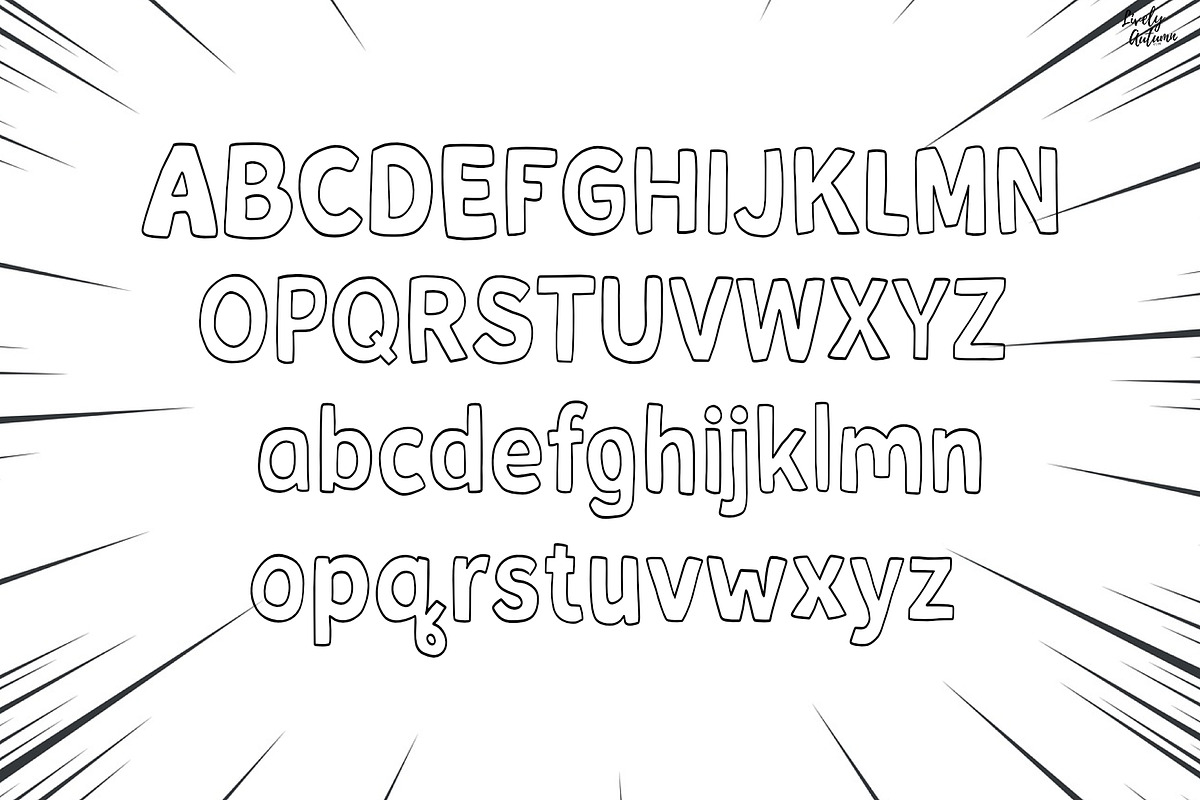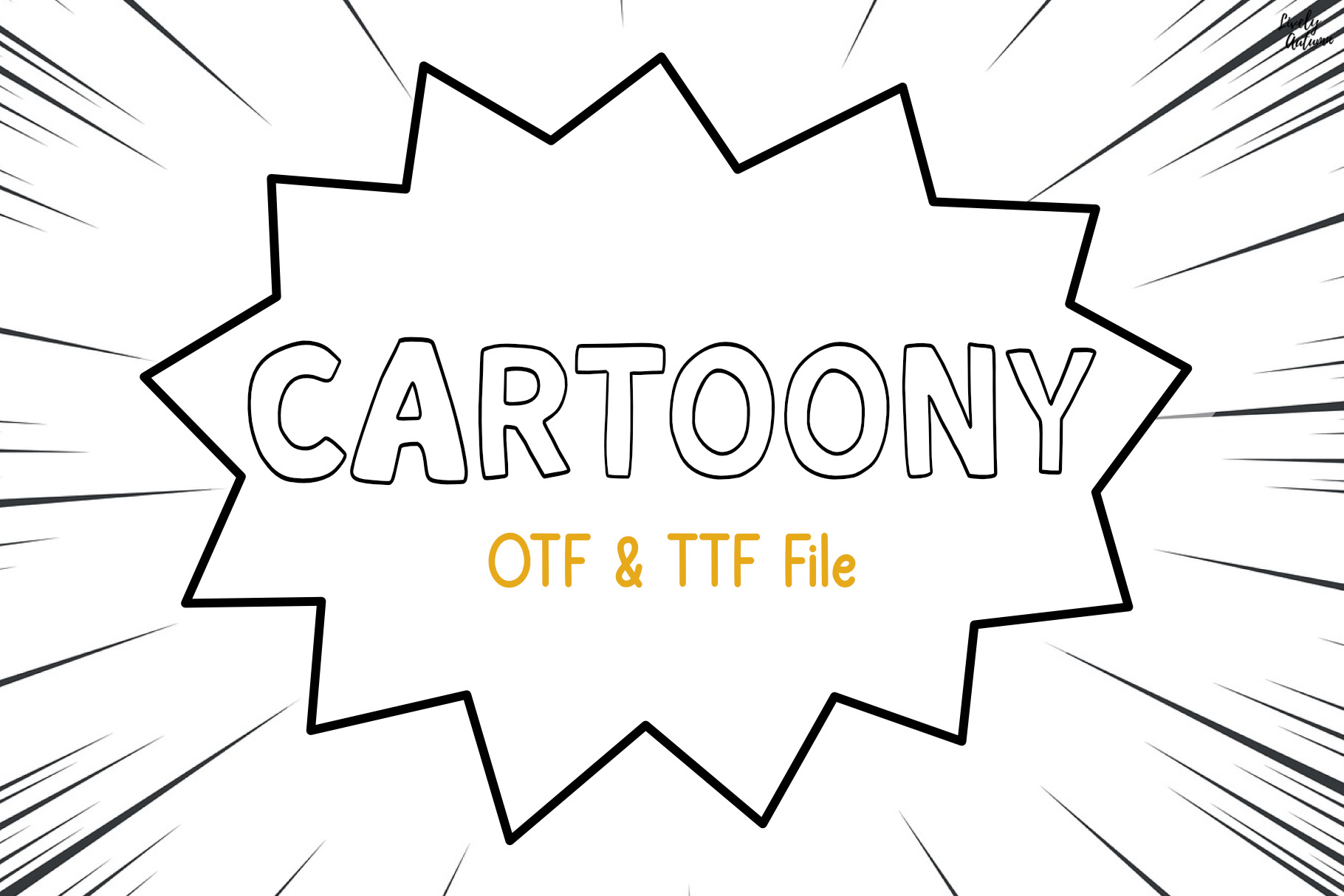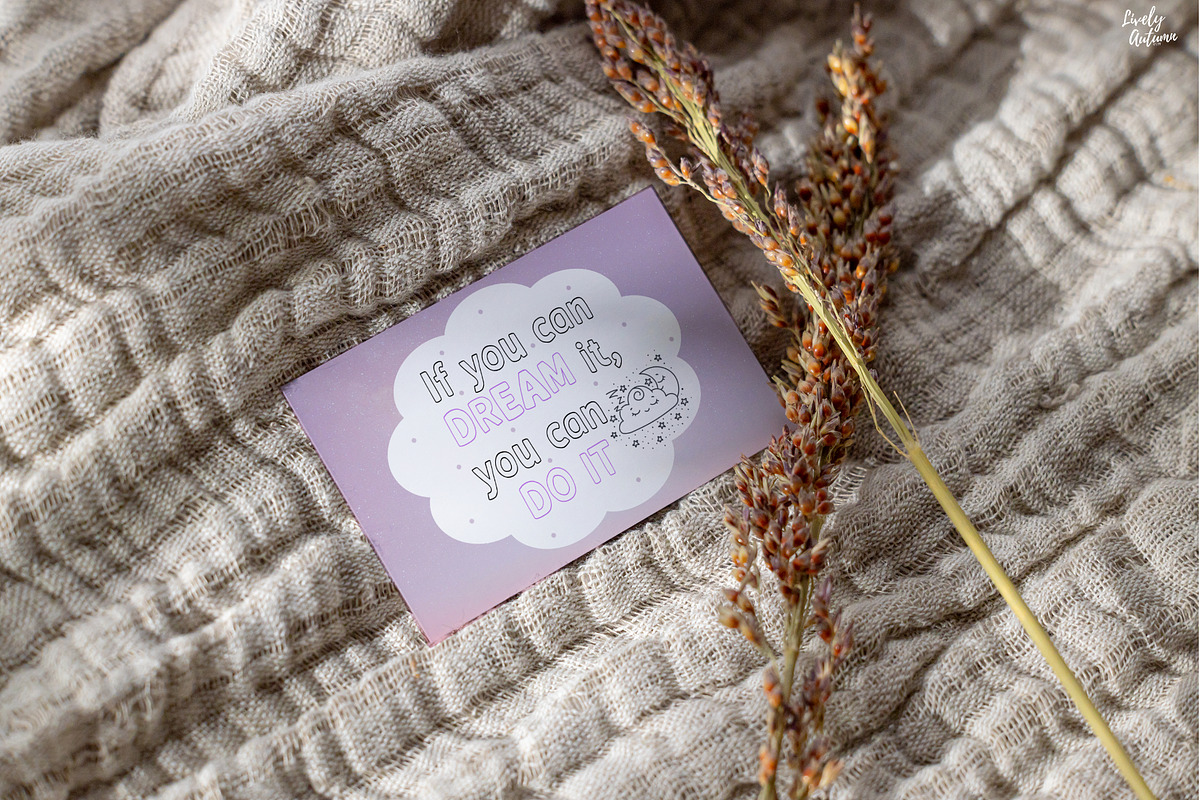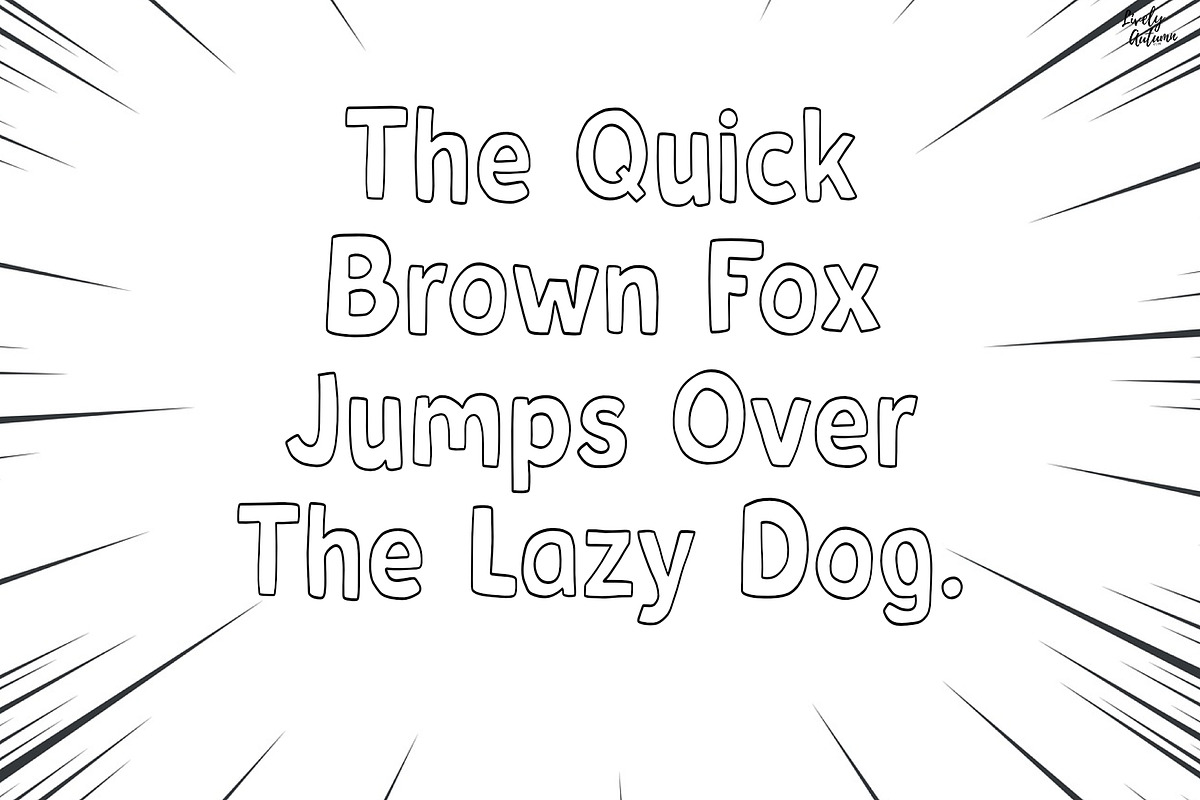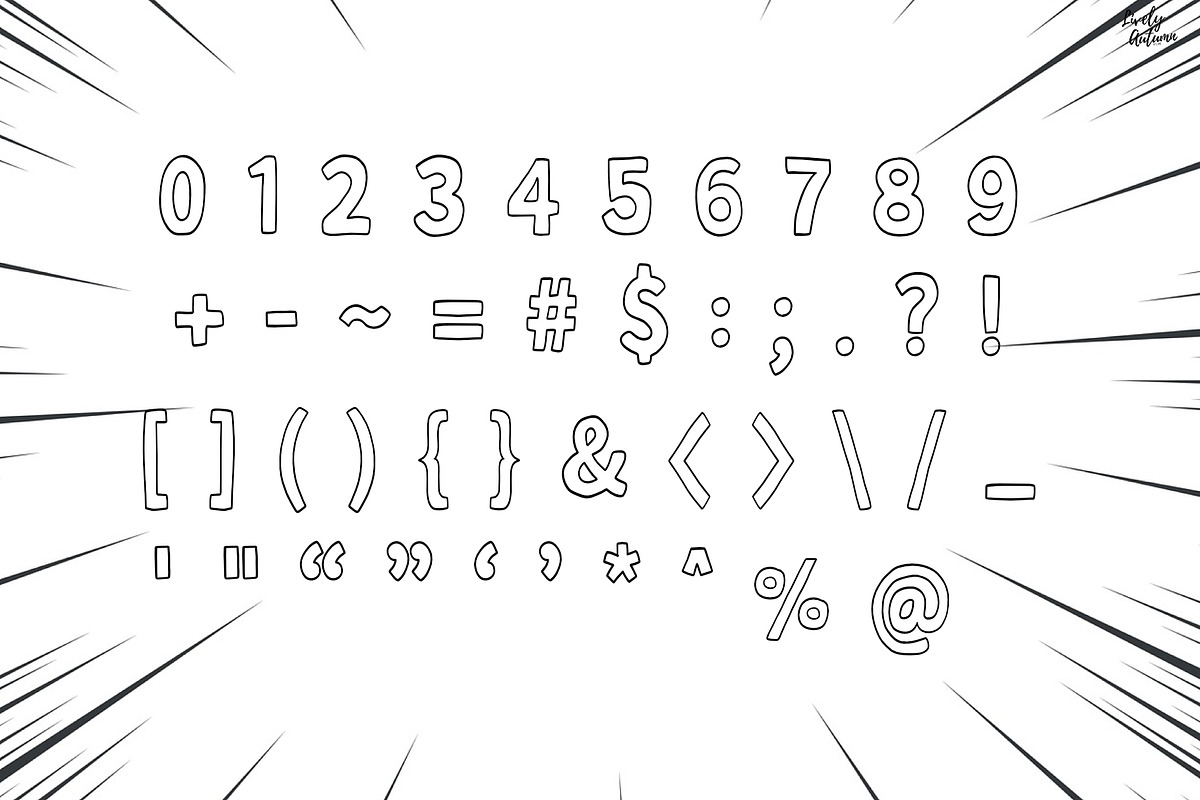
Cartoony | Handwritten Font
Cartoony Font is a outline handwriting font. Perfect for your personal projects and various project. From invitations to posters, social media graphics, journals, greeting cards, and much more.
- Font includes: uppercase, lowercase, numbers, and punctuation